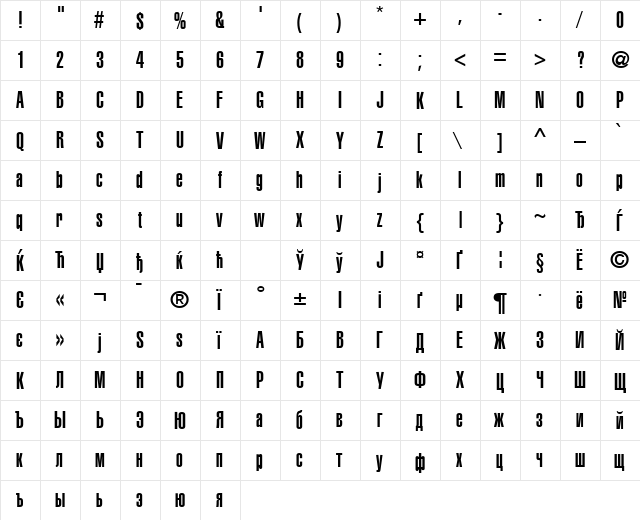
AGLettericaUltraCompressed Roman
Design Context for AGLettericaUltraCompressed Typeface
AGLettericaUltraCompressed is a composed and adaptable typeface that performs quietly and consistently across a wide range of design contexts.